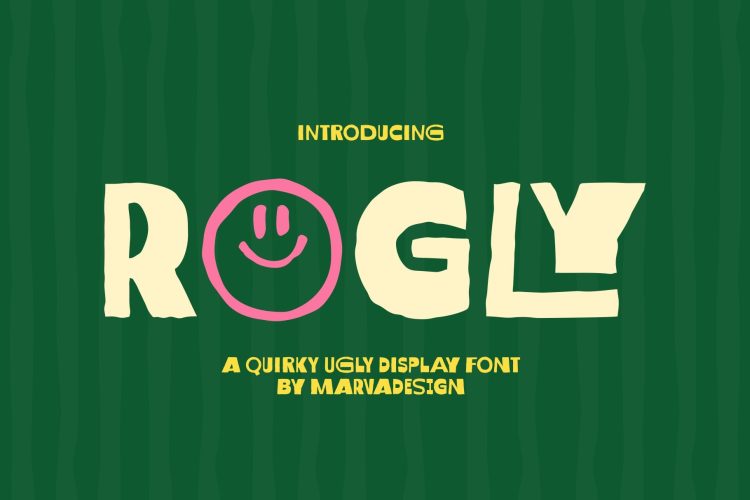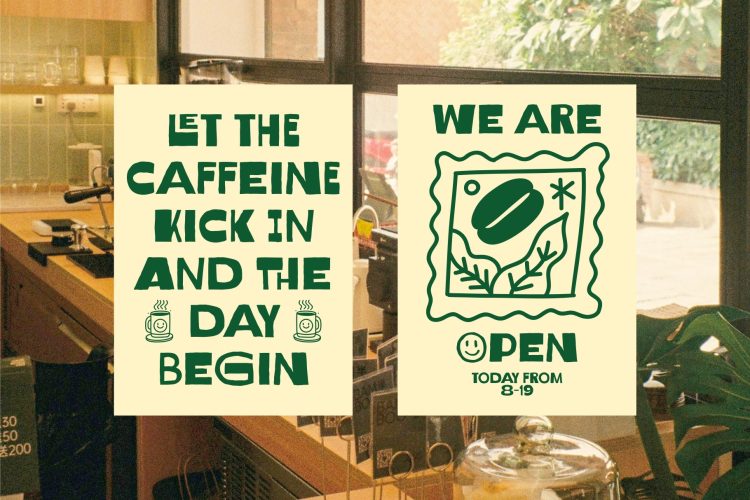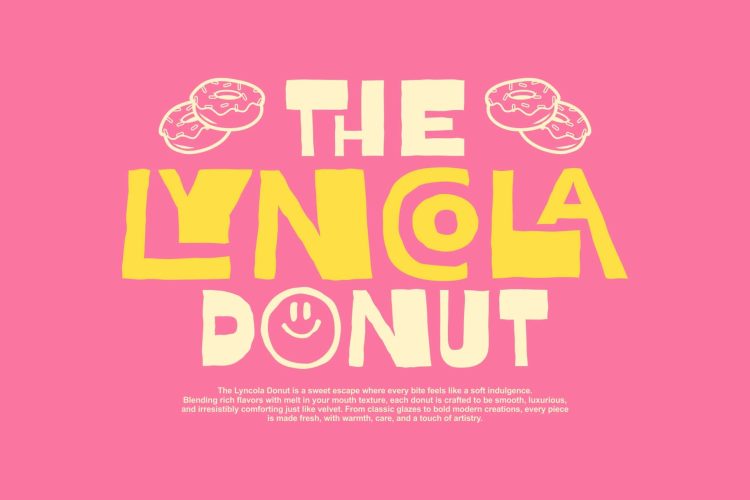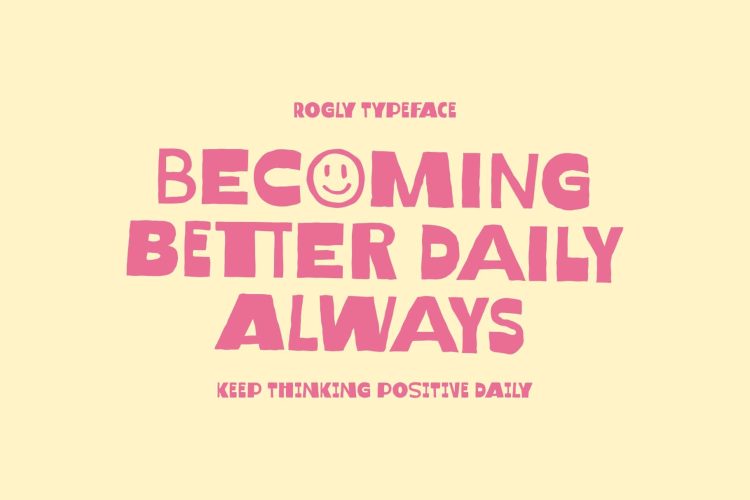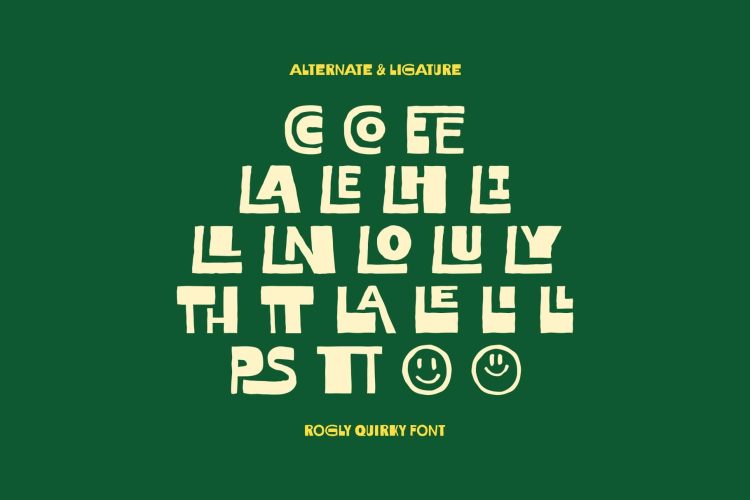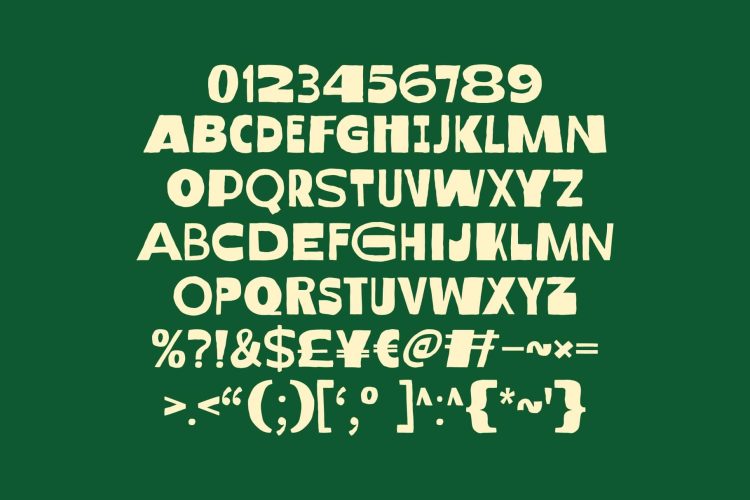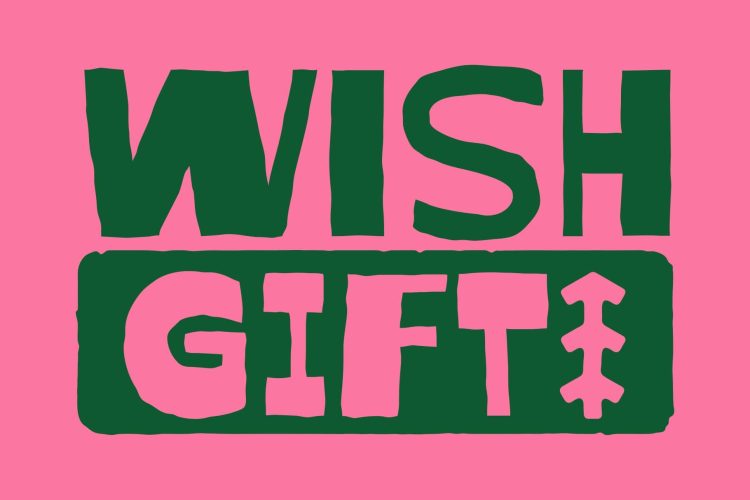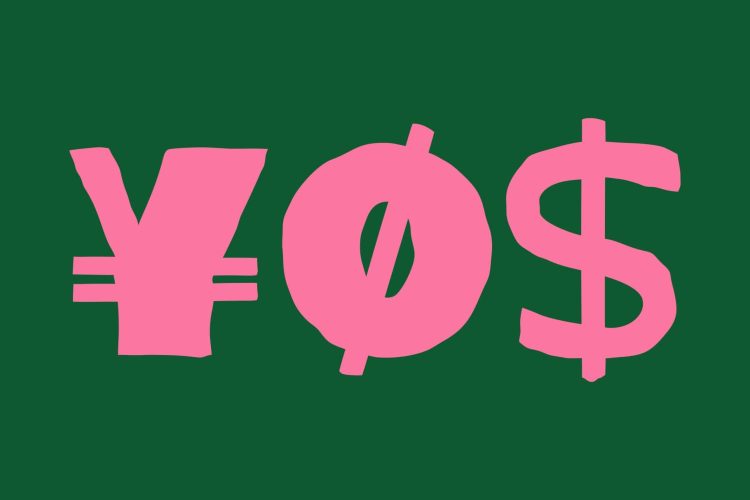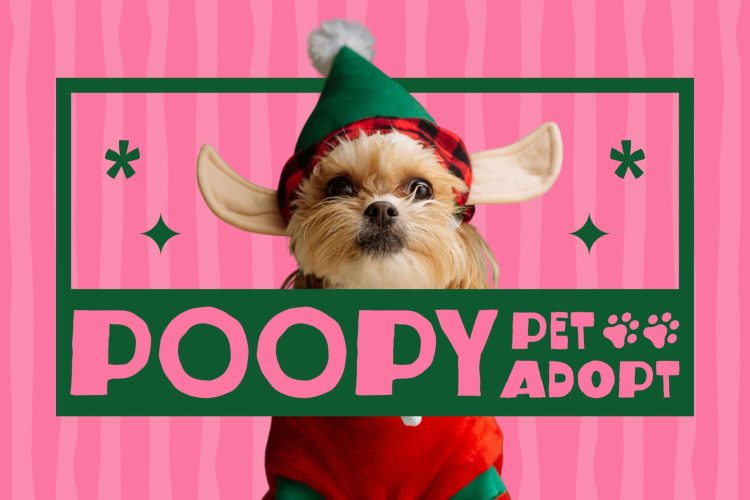
Handcraft Display Typeface
Rogly Regular
Rogly is a quirky, hand-crafted display font that embraces imperfection as its signature charm. Each letterform looks intentionally uneven, chunky, and playfully distorted, giving the typeface a spontaneous, cut-out aesthetic that feels warm and human. Its bold shapes, irregular strokes, and friendly smiley-face alternates create a whimsical personality perfect for designs that want to feel fun, casual, and approachable. Rogly also includes various alternates and ligatures that enhance its organic look, making every word feel lively and expressive. Ideal for posters, branding, packaging, and creative visual statements, Rogly stands out as a delightful “ugly-cute” font that radiates positivity and character.